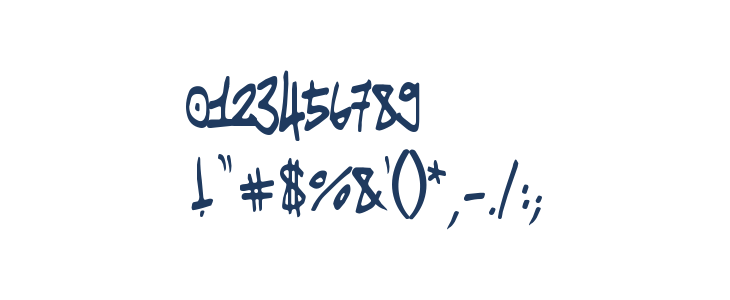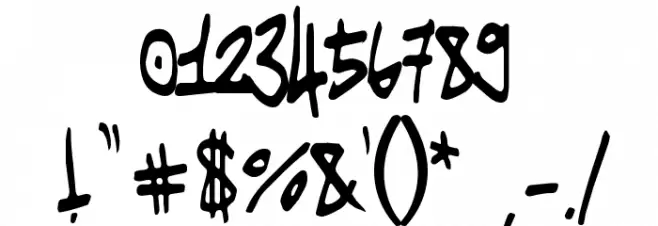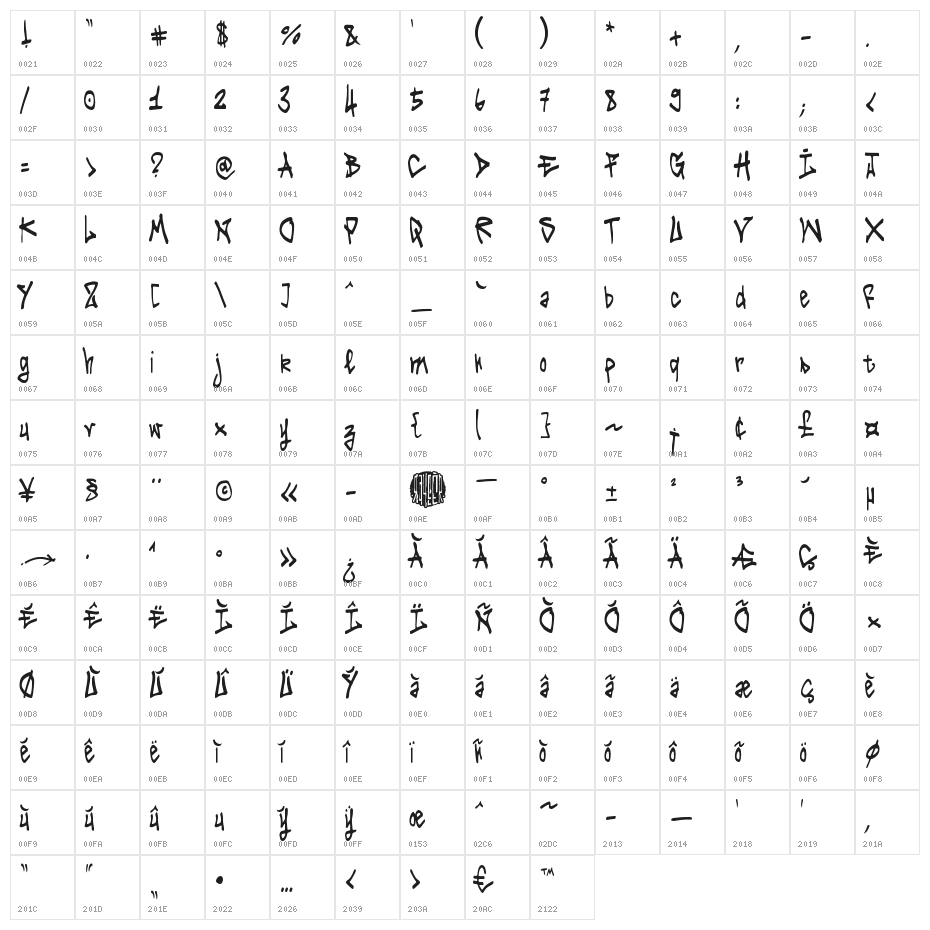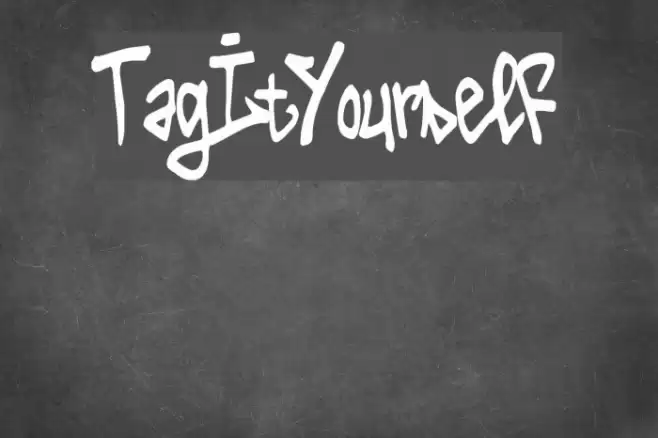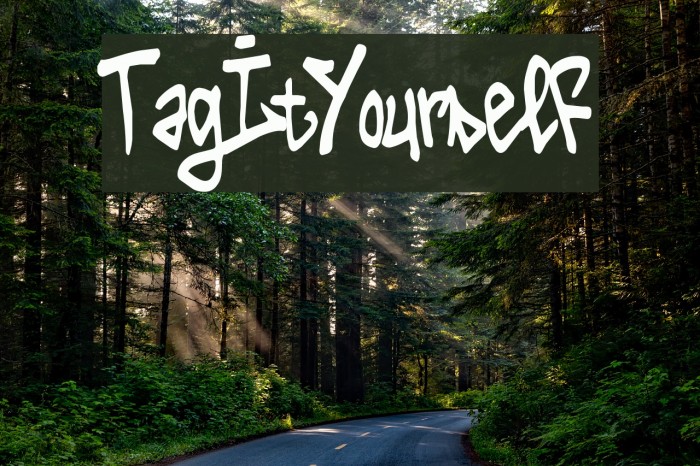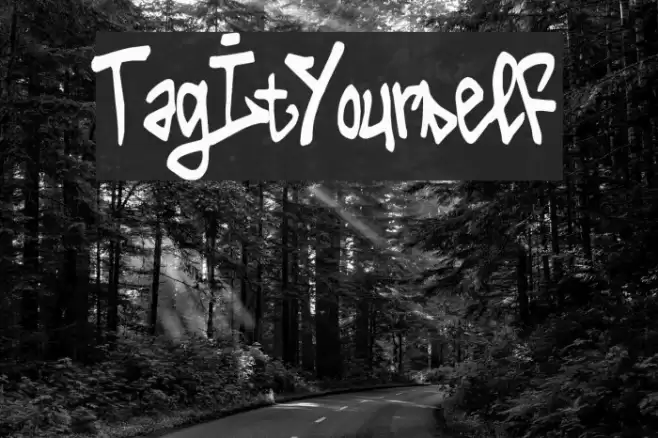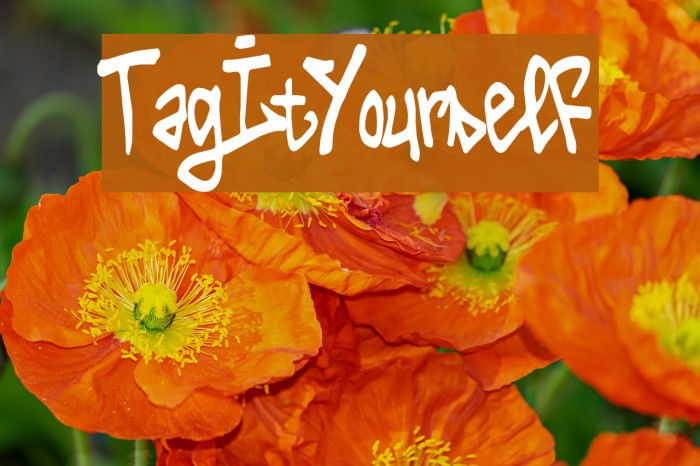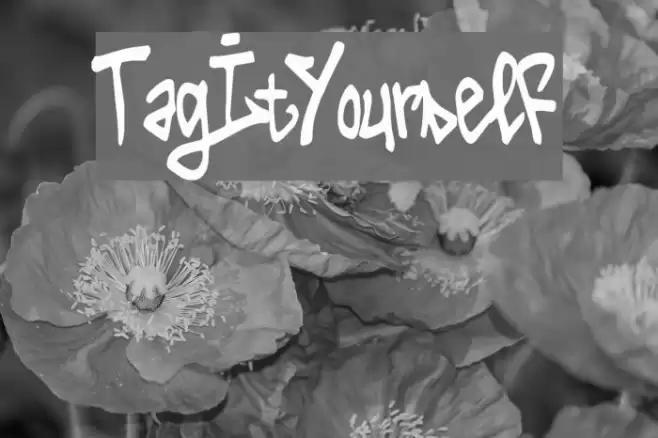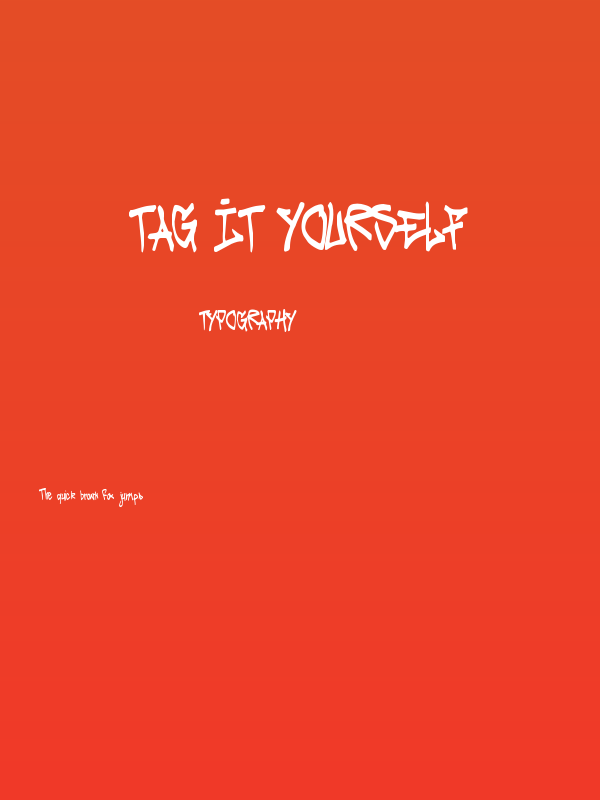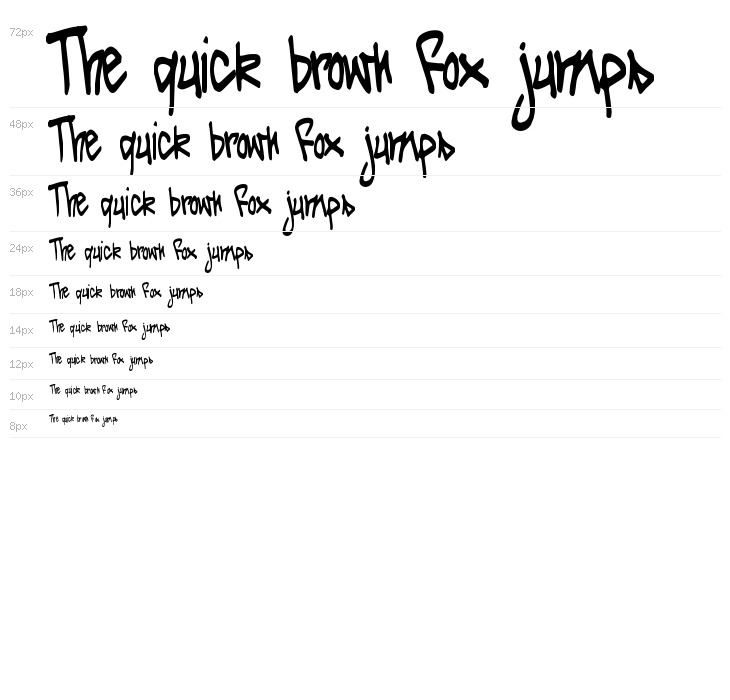
Tag It Yourself Font
Tag It Yourself Description
This font exudes a bold, graffiti-inspired style, characterized by its dynamic and energetic strokes. The letters are irregular and have a hand-drawn appearance, giving them a unique and rebellious flair. The uppercase letters are particularly striking, with exaggerated curves and angles that create a sense of movement. The lowercase letters maintain this energetic style, though they are slightly more restrained. Numbers and special characters follow the same aesthetic, ensuring consistency throughout. This font is perfect for projects that require a bold, urban, and edgy look.
| Overall Style | Urban, Edgy, Graffiti |
| Proposed Projects | Ideal for street art designs, urban-themed posters, music album covers, and edgy branding projects. |